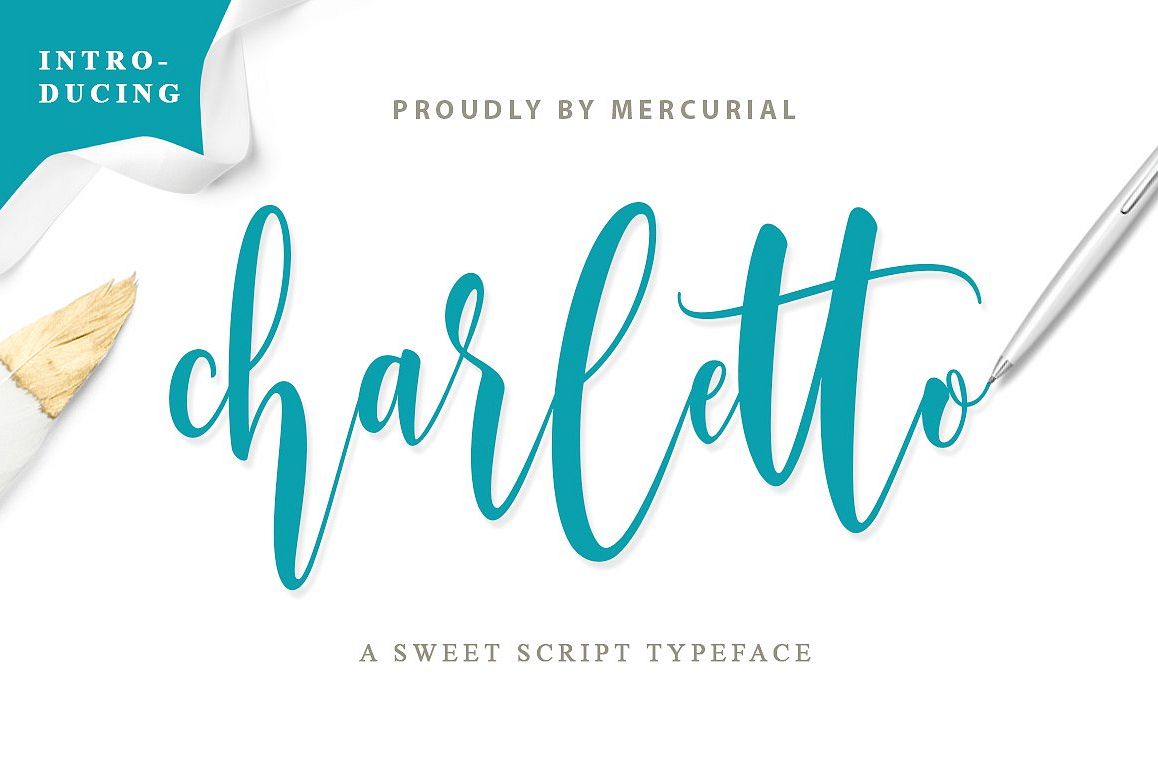
This is Charletto, a new fresh & modern script with a handmade
calligraphy style. a fabulous typeface that is attractive and So sweet
and beautiful on invitation like greeting cards, branding materials,
business cards, quotes, posters, and more!